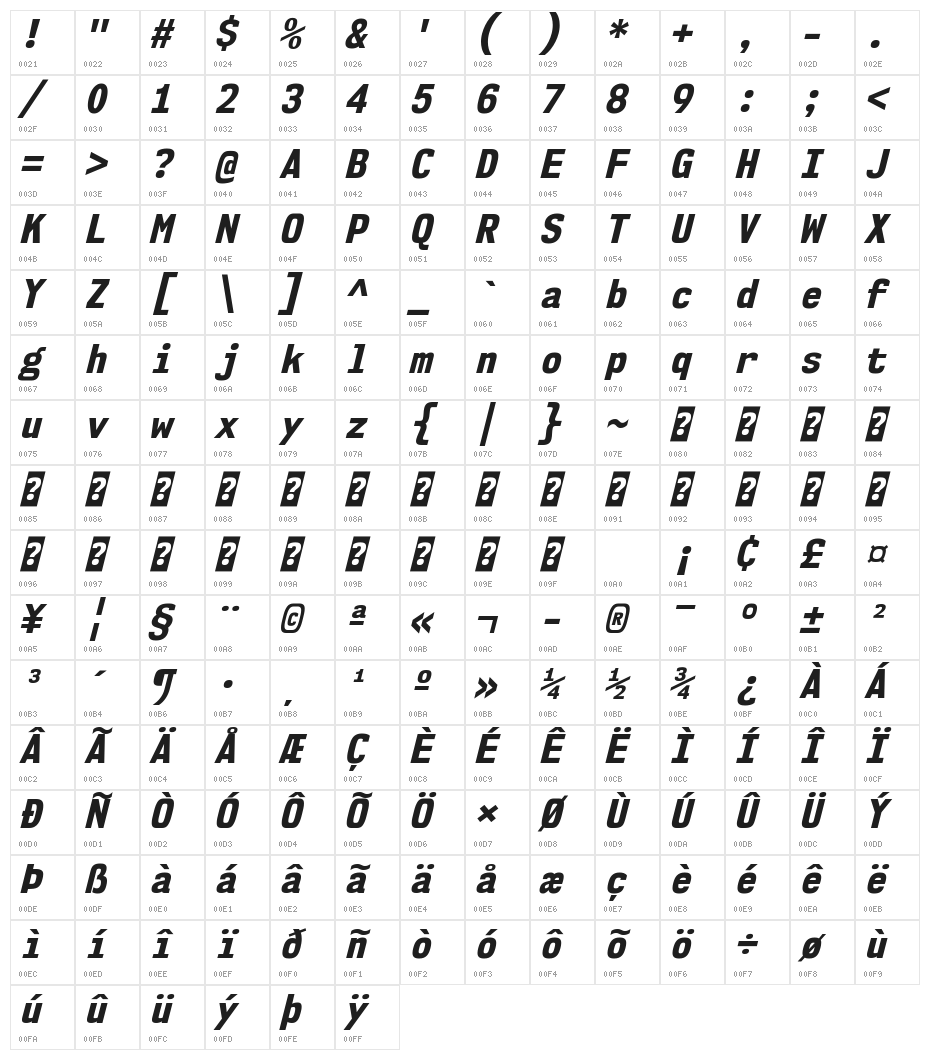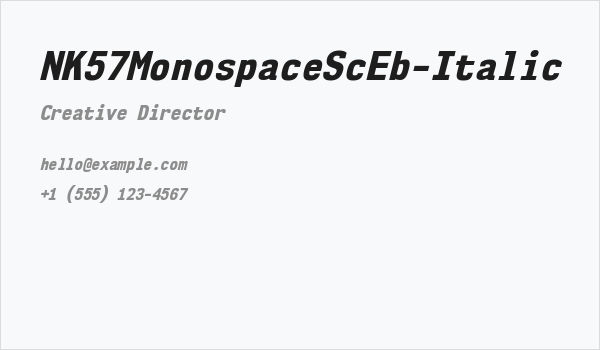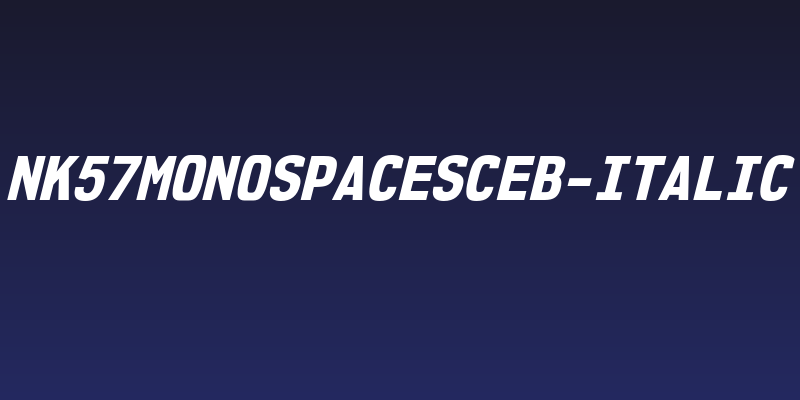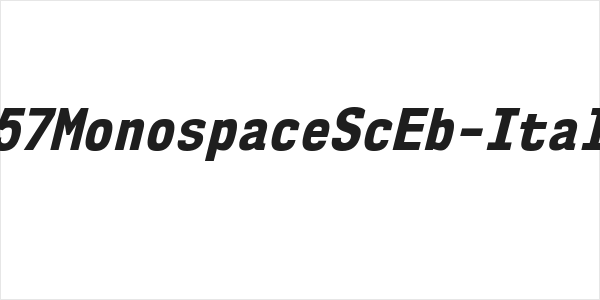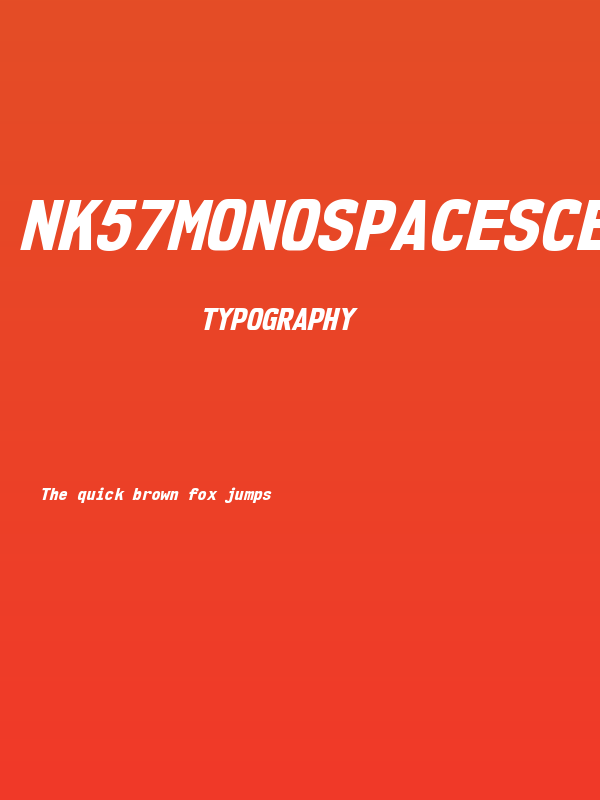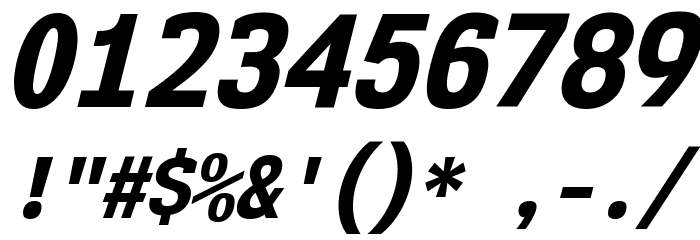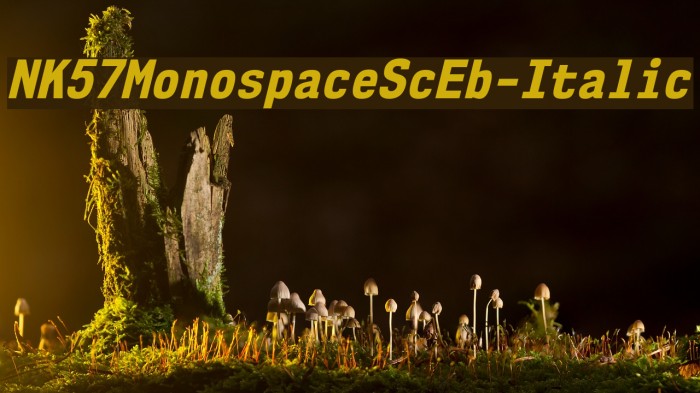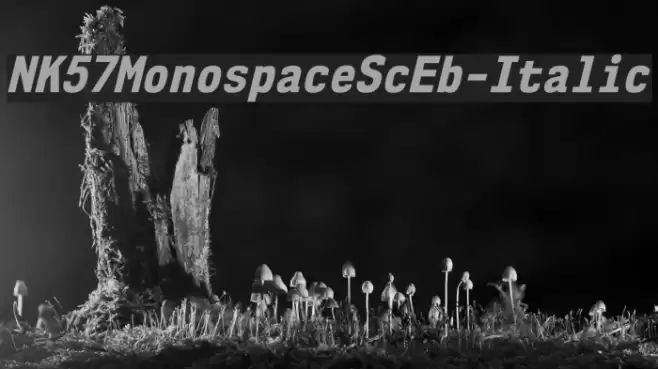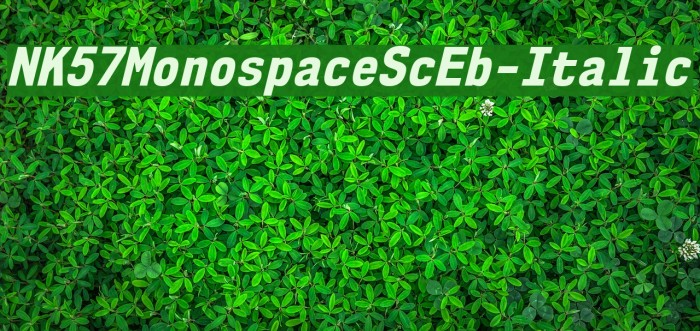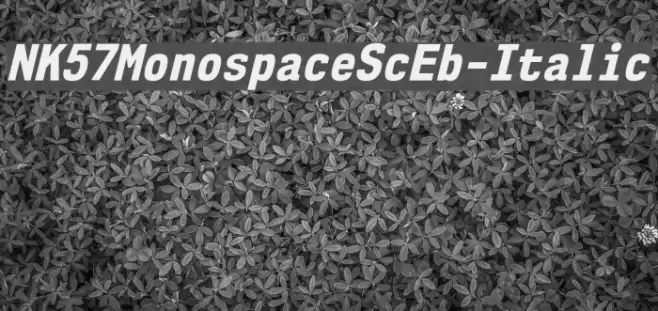
NK57MonospaceScEb-Italic Font
NK57MonospaceScEb-Italic Description
This typeface features a bold, italicized style with a monospaced design, ensuring each character occupies the same amount of horizontal space. The strokes are thick and consistent, providing a strong visual impact. The slanted characters add a dynamic and modern feel, while the uniform spacing maintains readability. The uppercase and lowercase letters are well-defined, with a slight slant that enhances the italic effect. Numbers and special characters are clearly legible, making this font versatile for various applications.
| Use Case | Headlines, Coding, Technical documents |
| Proposed Projects | Ideal for coding environments, technical documents, and modern design projects requiring a bold and consistent typeface. |